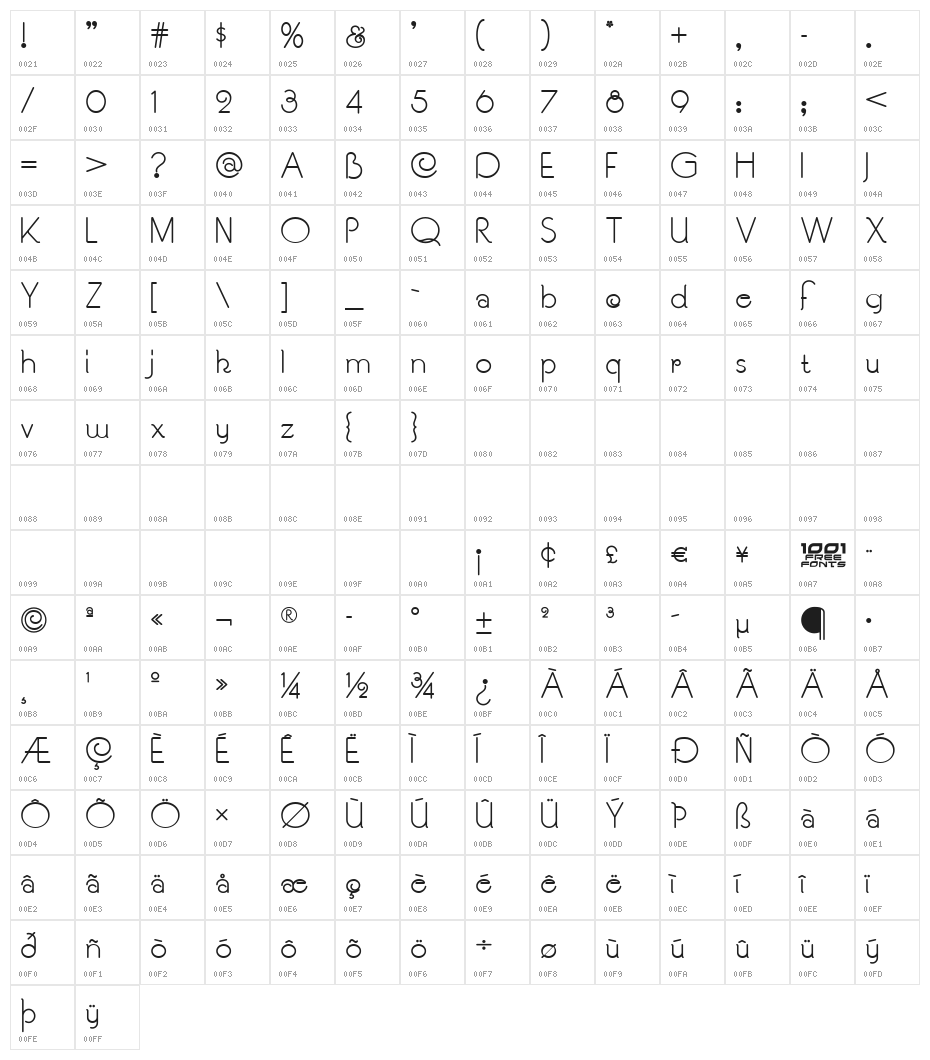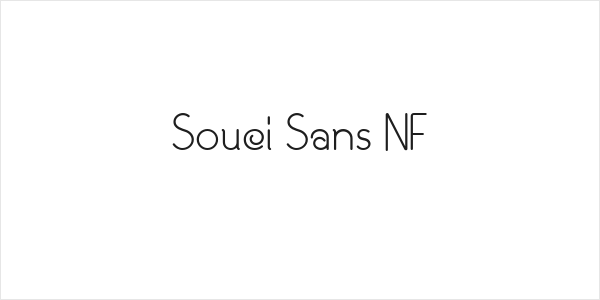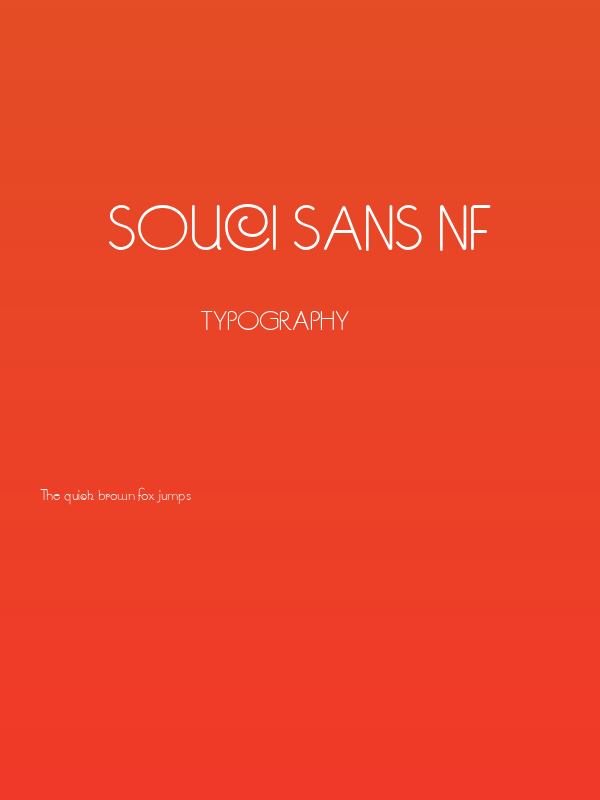
Souci Sans NF Font
Souci Sans NF Description
This font features a unique and playful design with a modern twist. The characters are rounded and have a consistent stroke width, giving it a clean and approachable appearance. The uppercase letters are bold and distinct, while the lowercase letters maintain a friendly and inviting look. The numerals are clear and easy to read, and the special characters are well-integrated into the overall style. This font's design is both functional and aesthetically pleasing, making it suitable for a variety of applications.
Use CaseHeadlines, Logos, Branding
Proposed ProjectsIdeal for branding, children's books, playful logos, and creative advertising materials.